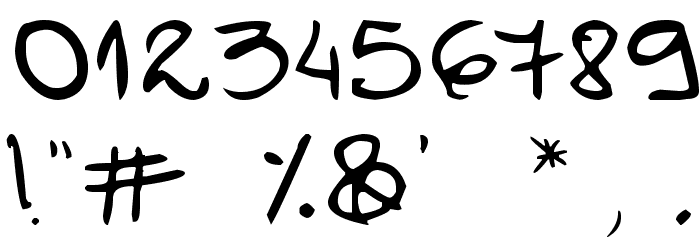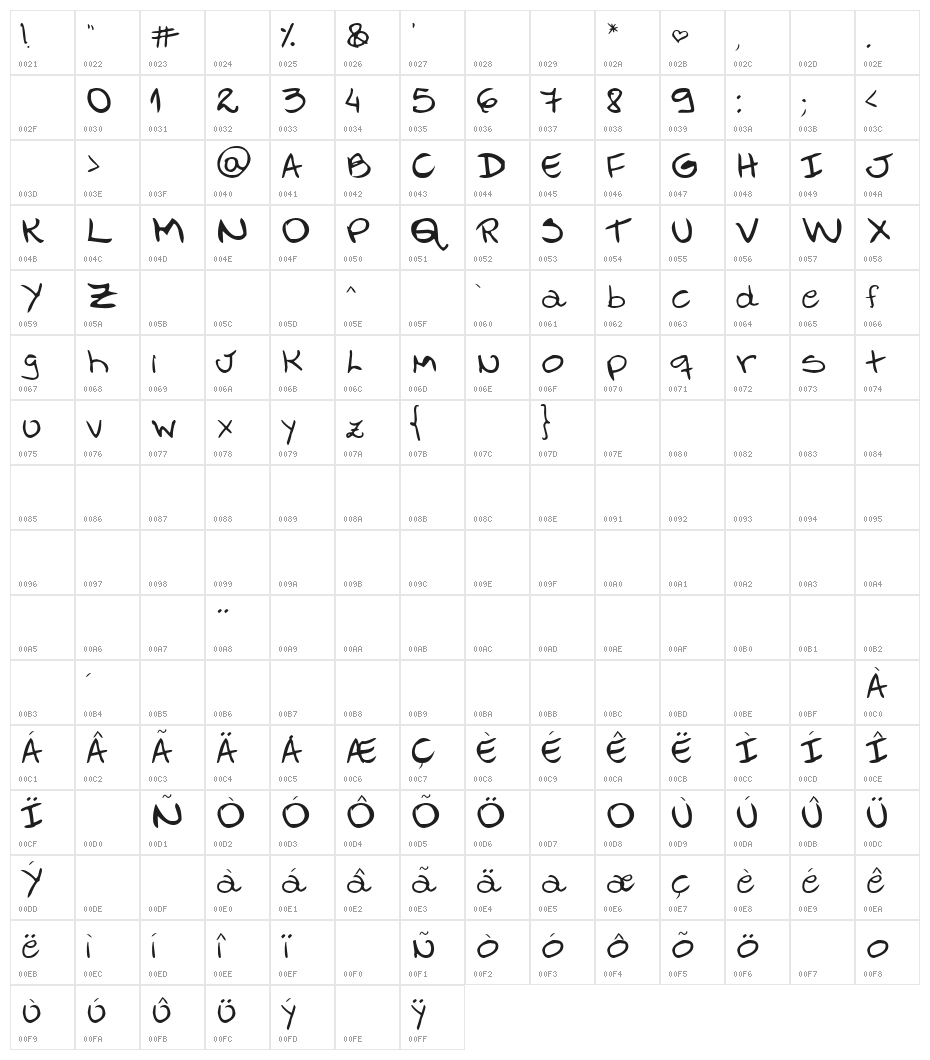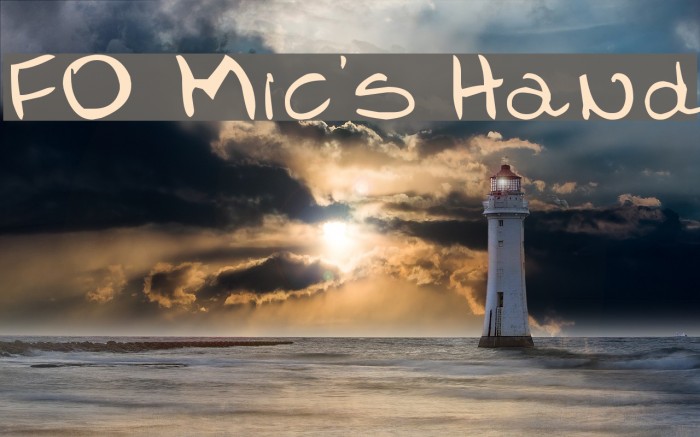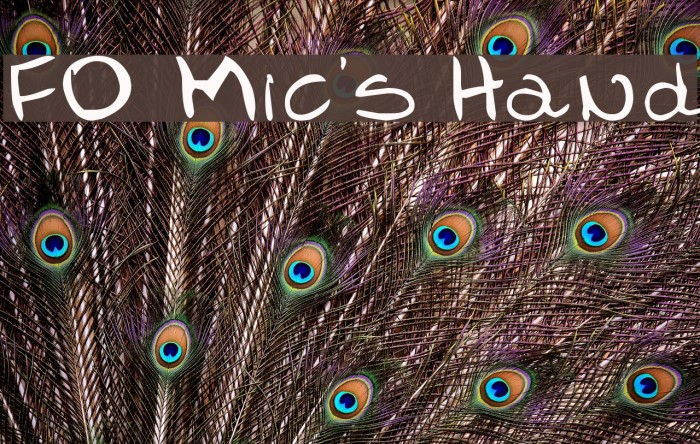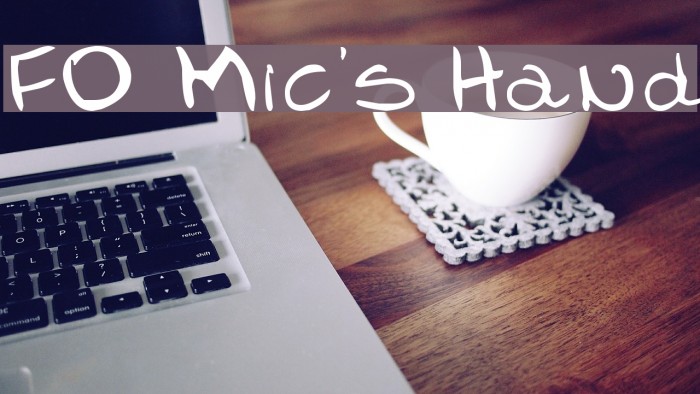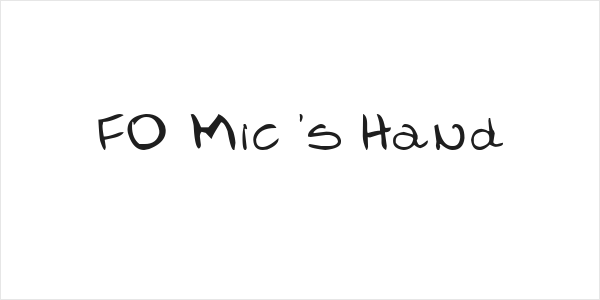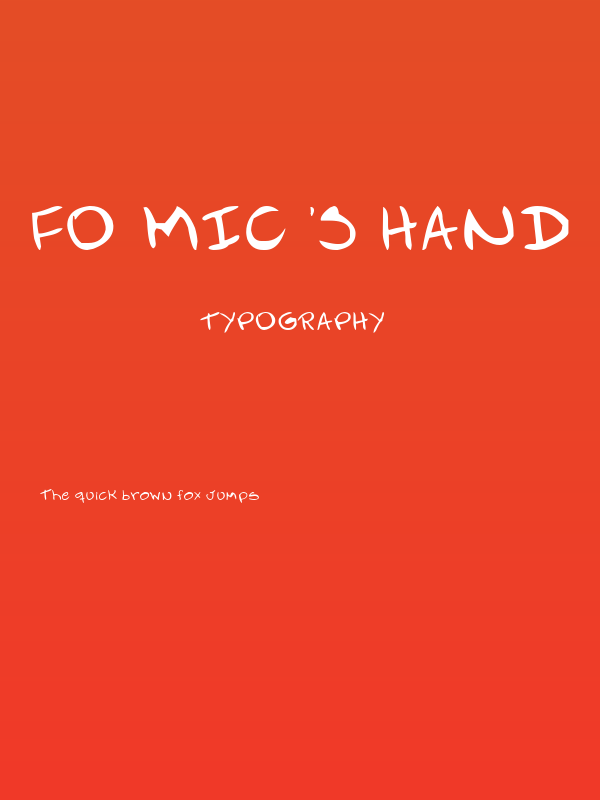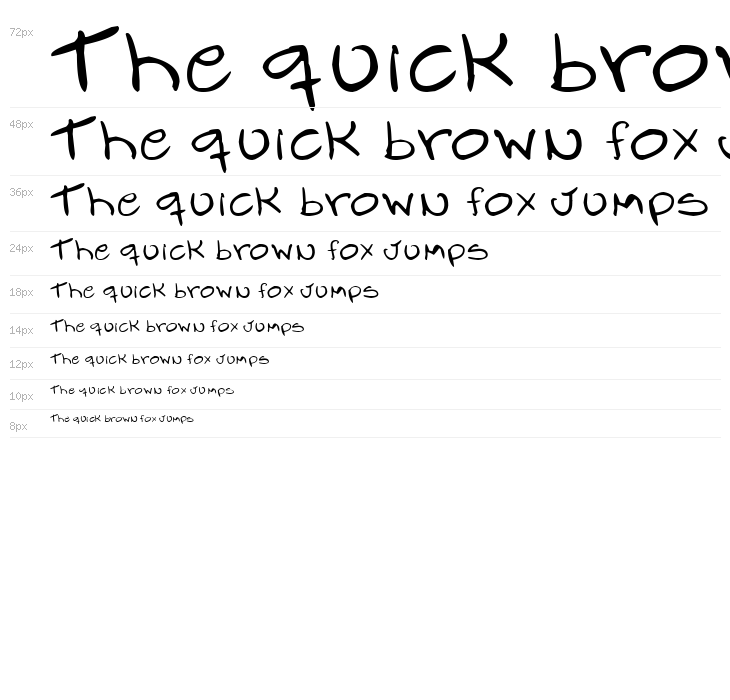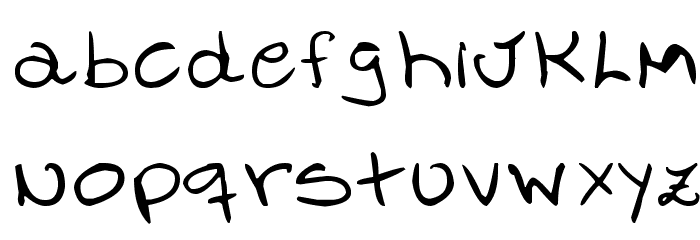
FO-Mic's Hand Font
FO-Mic's Hand Description
This playful and dynamic font features a handwritten style with a casual, informal appearance. The letters are slightly irregular, giving it a whimsical and personal touch. The strokes are bold and confident, with a slight slant that adds to its lively character. The uppercase and lowercase letters maintain a consistent style, while the numbers and special characters complement the overall aesthetic. This font exudes a friendly and approachable vibe, making it suitable for creative and informal projects.
| Overall Style | Playful, Informal, Whimsical |
| Use Case | Logos, Invitations, Creative Projects |
| Proposed Projects | Ideal for greeting cards, children's books, playful branding, and informal invitations. |